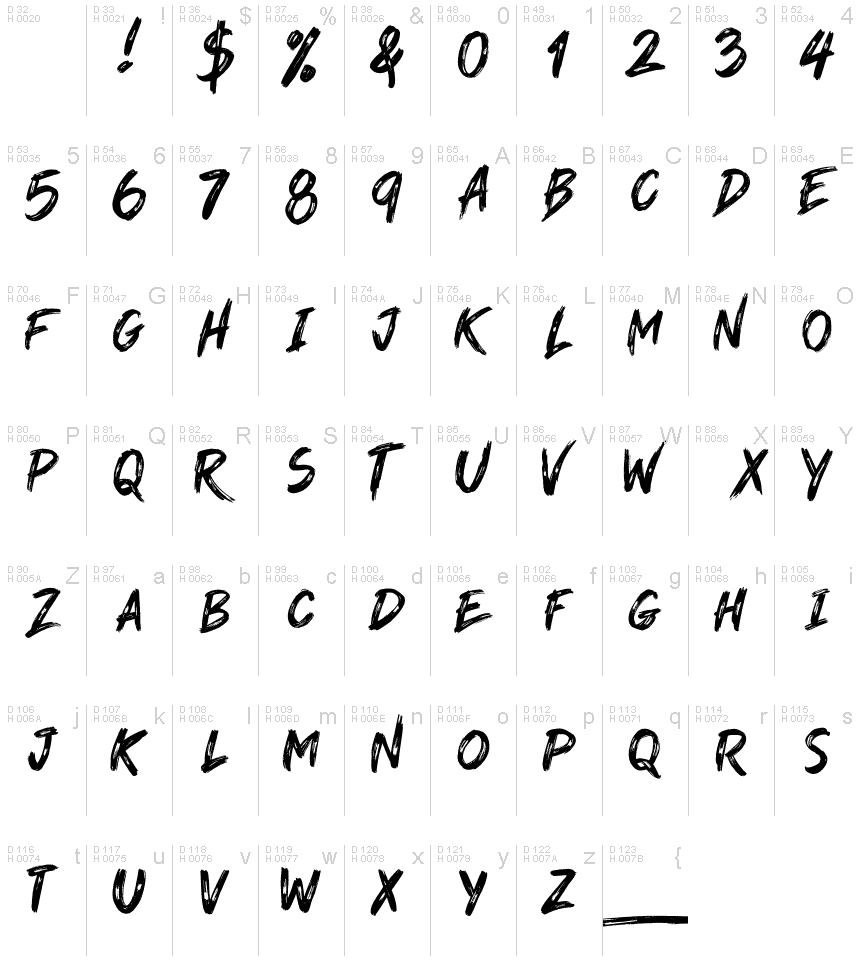
Everyrose Demo
Everyrose font is a must-have brush font designed by The Branded Quotes.
About this font:
Everyrose is the brush type for every trend and every season. The balance of black and white, night and day, beauty and function.
It can go well with most of your presentations - headlines, emotional quotes, art prints, comic strip, tropical vibe templates, movie titles and film intros.